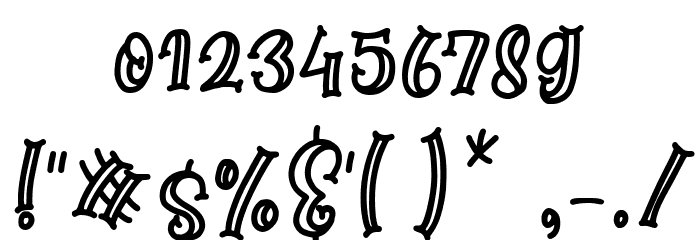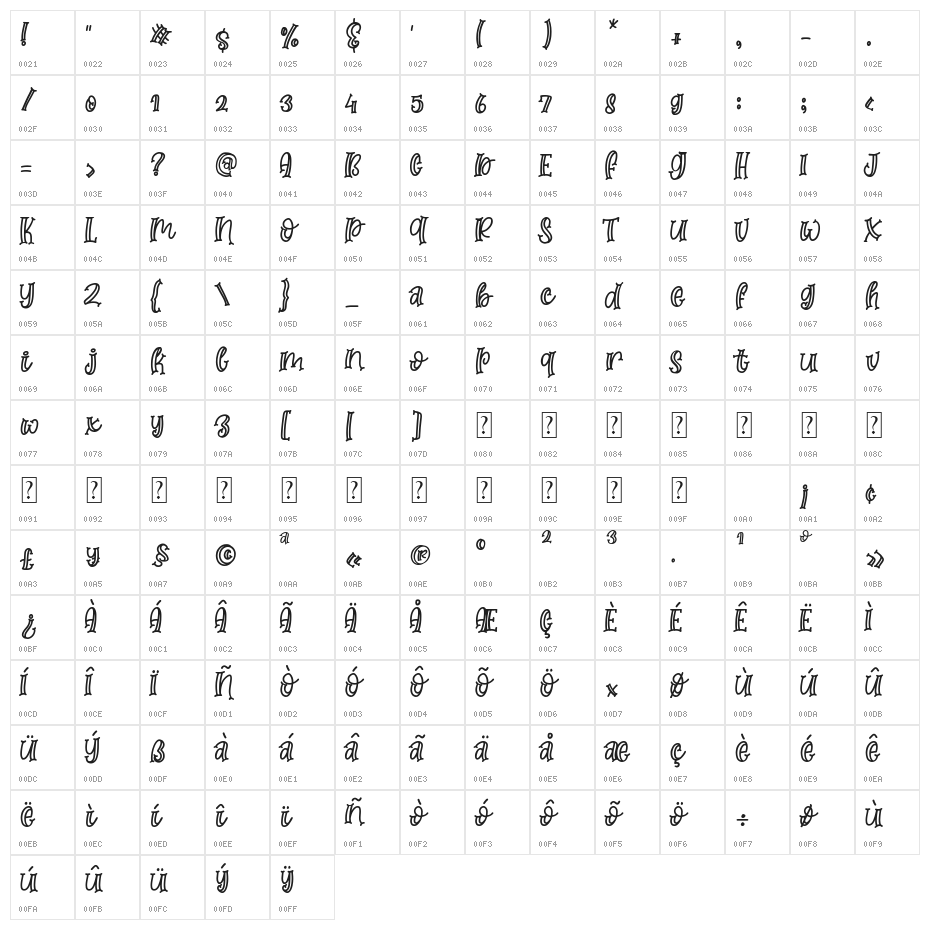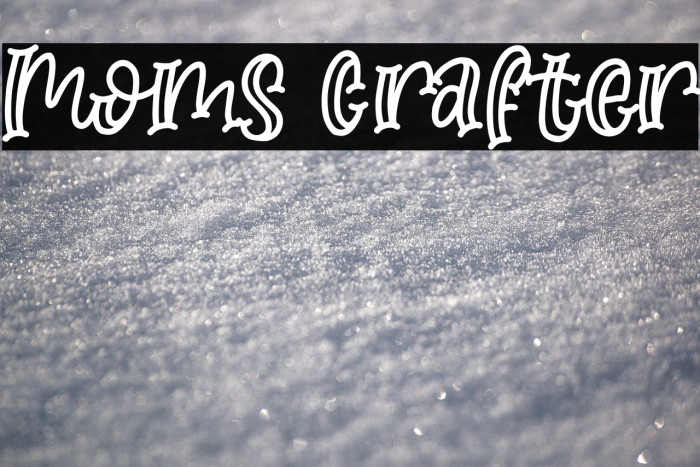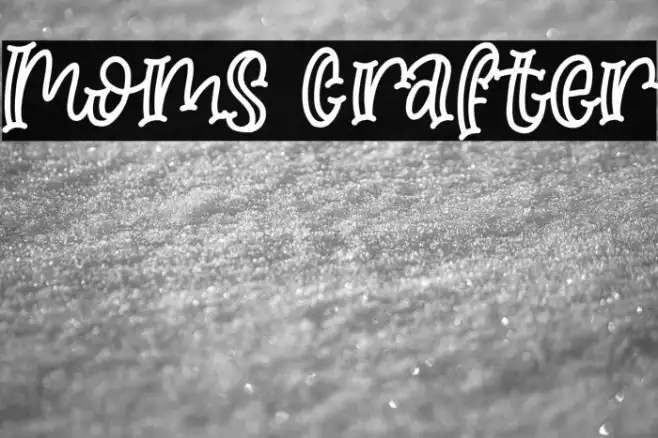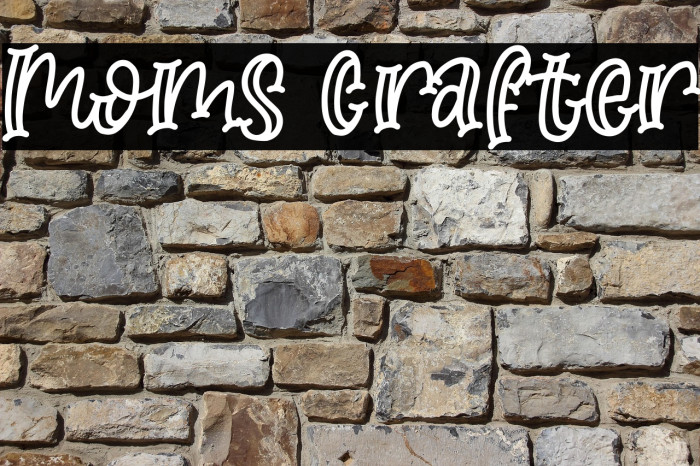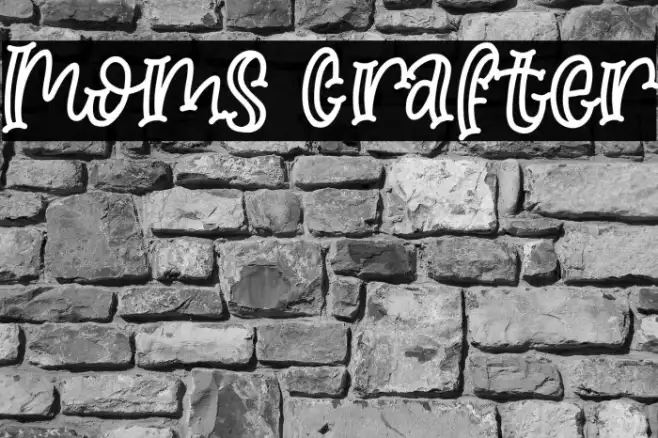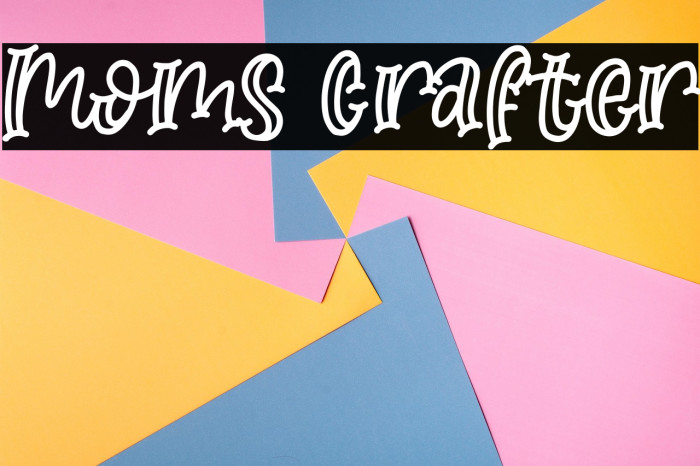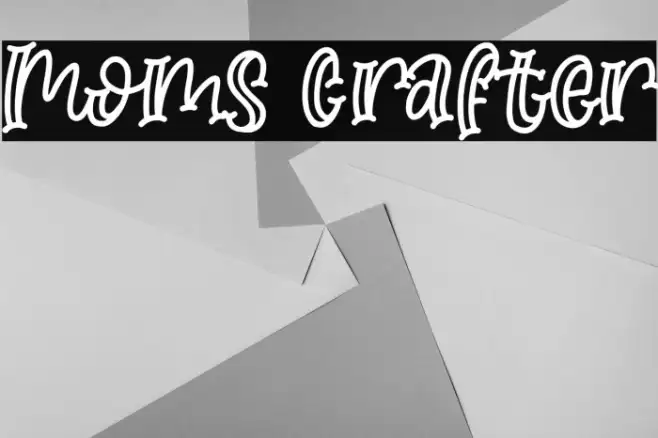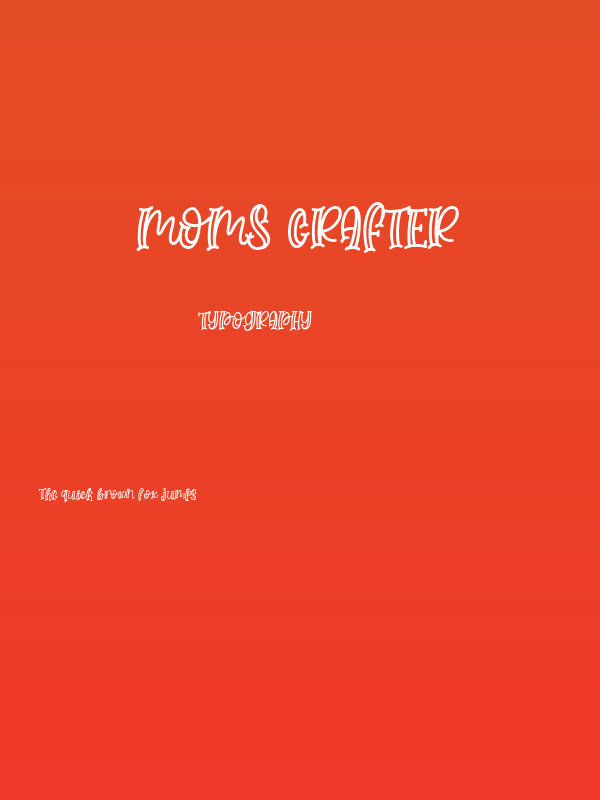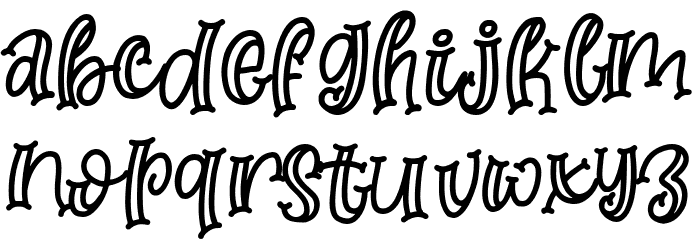
Moms Crafter Font
Moms Crafter Description
This font features a playful and whimsical design, characterized by its bold, rounded strokes and decorative elements. Each letter is uniquely crafted with an artistic flair, incorporating curls and loops that give it a hand-drawn appearance. The uppercase letters are particularly ornate, with exaggerated serifs and flourishes that add to the font's charm. The lowercase letters maintain a consistent style, with smooth curves and a slightly condensed form. Numbers and special characters are designed to match the overall aesthetic, ensuring a cohesive look across all text. This font exudes a sense of fun and creativity, making it ideal for projects that require a touch of personality and uniqueness.
| Overall Style | Whimsical, Artistic |
| Proposed Projects | Ideal for crafting projects, children's book covers, playful branding, and creative invitations. |